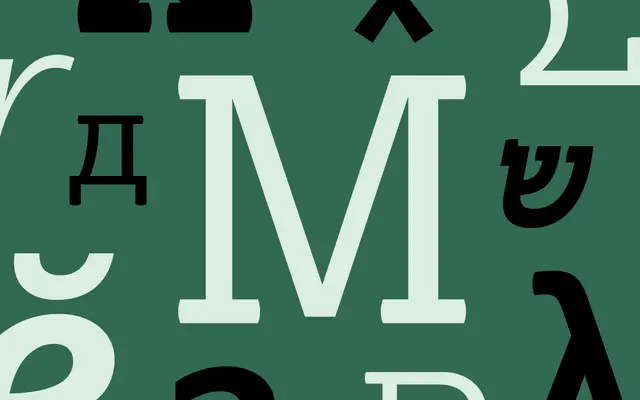
Lexia
Dalton Maag · Ron Carpenter, Ignacio Casco Guijarro, Reiko Hirai, Franziska Hubmann, Robert Pratley · 2024
A humanist slab-serif with warmth in text and punch at heavier weights, pairing with Lexia Mono.
A humanist slab-serif drawn by Ron Carpenter, Ignacio Casco Guijarro, Reiko Hirai, Franziska Hubmann and Robert Pratley. Lexia keeps a warm, friendly tone in text and steps up to high-impact communication as the weight axis travels into Bold and Black. Cyrillic, Greek, Hebrew, Latin and Latin Extended make it a multilingual workhorse, and it pairs with Lexia Mono for systems that need a matching code face.
Dalton Maag classifies Lexia as a contemporary humanist slab-serif with a warm, friendly, inviting tone, supported by Weight and Italic variable font axes. Pairs with Lexia Mono.